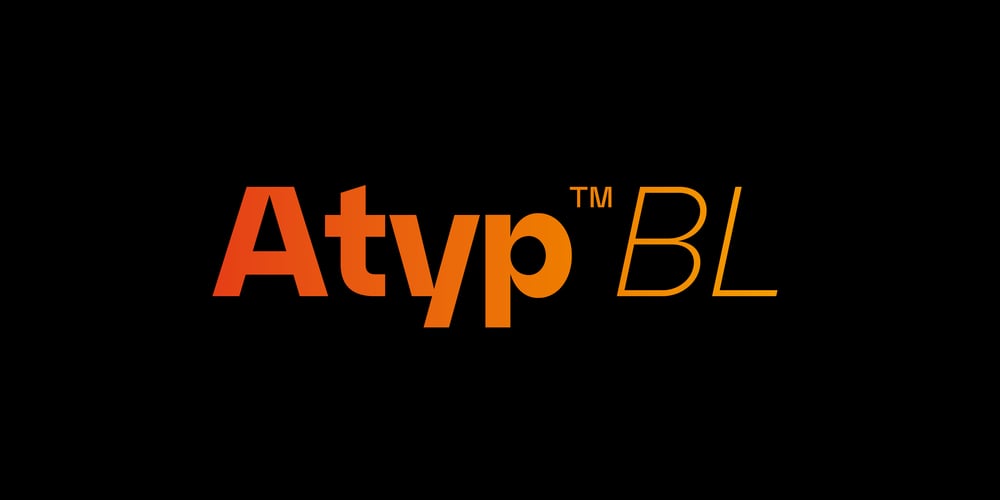
Atyp BL Font Family was designed by Tomáš Brousil and published by Suitcase Type Foundry. Atyp BL contains 25 styles and family package options. The sources of inspiration for the Atyp typeface are spread out widely both stylistically and chronologically. The basic proportions of the uppercase refer to the elementary geometric constructions of the Bauhaus. The subtle details in the drawing of the characters and the microscopic adjustments, which evoke the illusion of uniformity and mechanical purity, pay homage to the rationalism of the typefaces popular in the International Style. The increased contrast of the joints of the bowls and shoulders in the Display weight, which in certain diagonal curves transition into almost deconstructive permutations. For a change these take delight in doing things on purpose, teasing readability and breaking the rules of the new millennium’s typography.Atyp was created by adapting a typeface originally made for a commercial television station. The potential of the neutral grotesque, proven by its excellent readability on screens, gave the impetus for its preparation into an extremely wide character set.Coherence across all eight key masters lays the groundwork ideally for using the variable font format. The key benefits of this technology are a significant reduction in data consumption in the case of web fonts, as well as an unlimited access to the full range of styles, which in turn is a significant benefit in the area of responsive design.